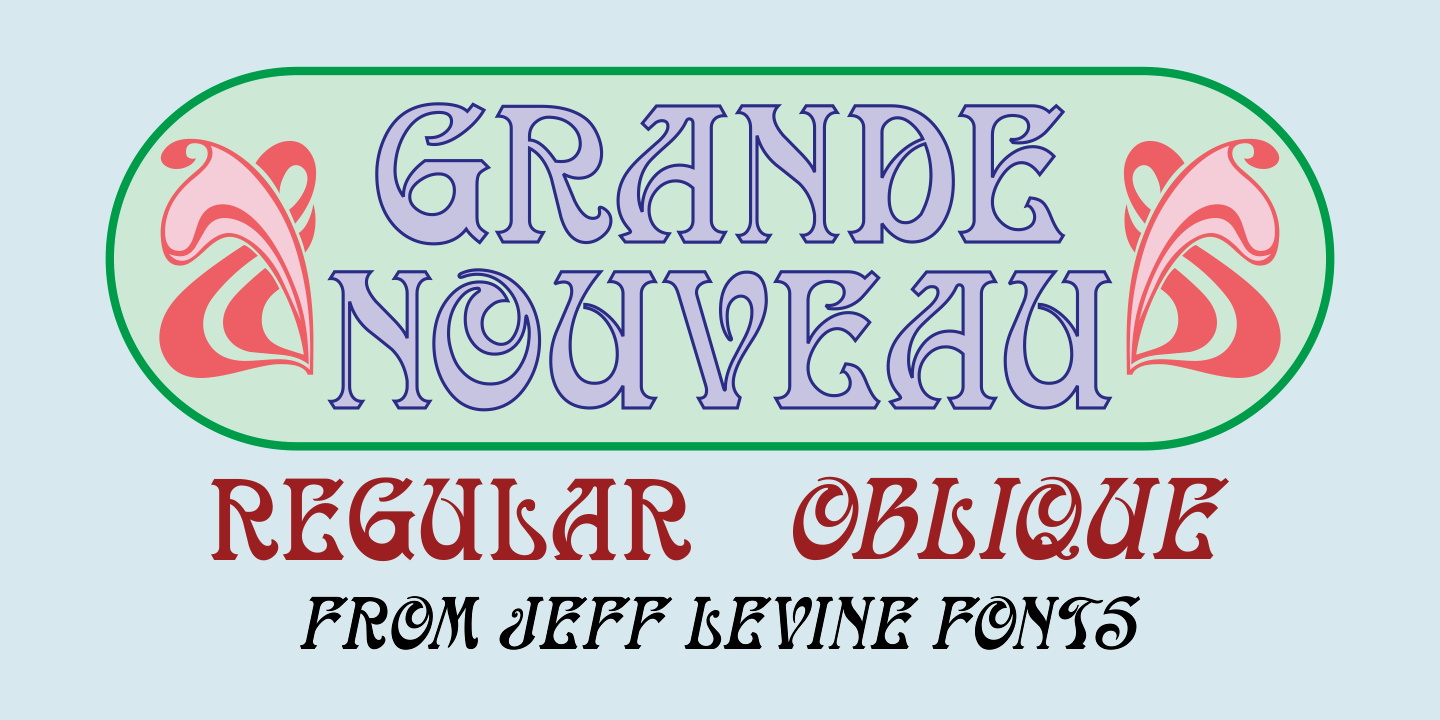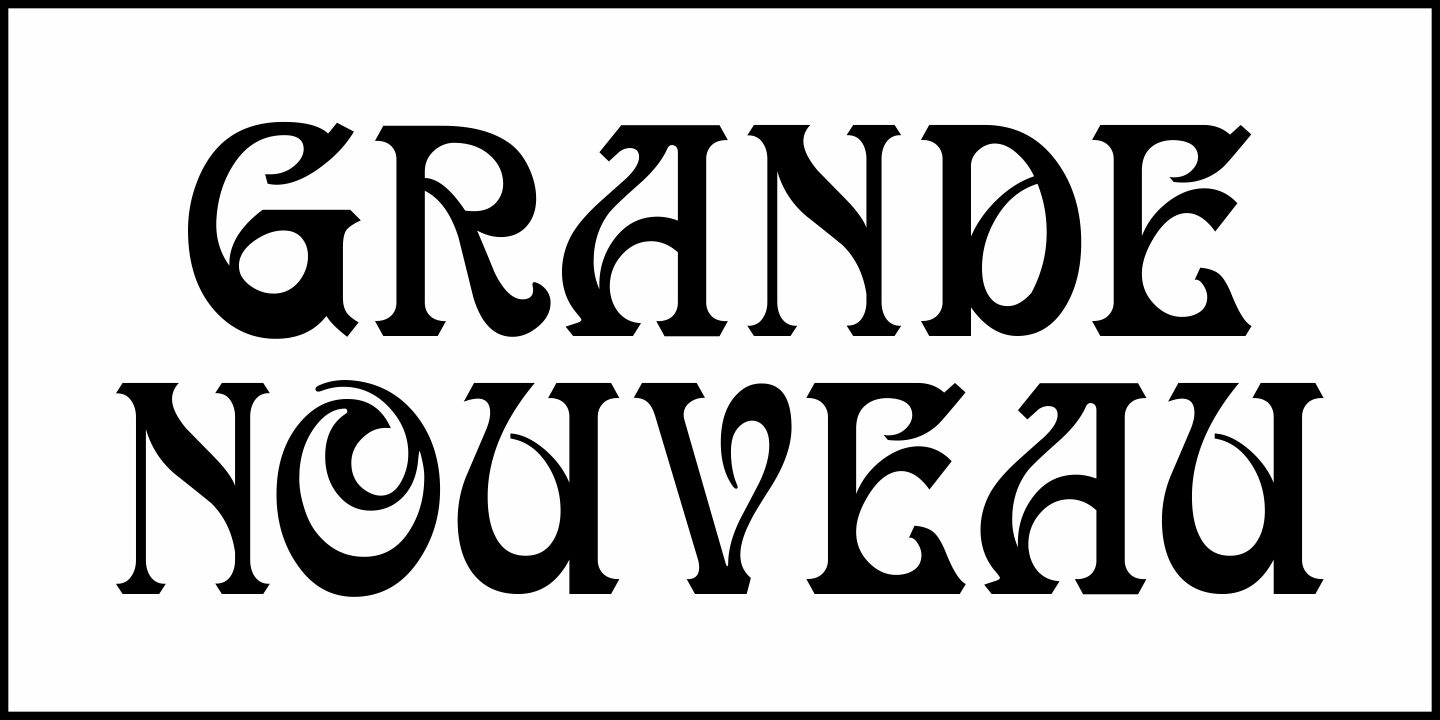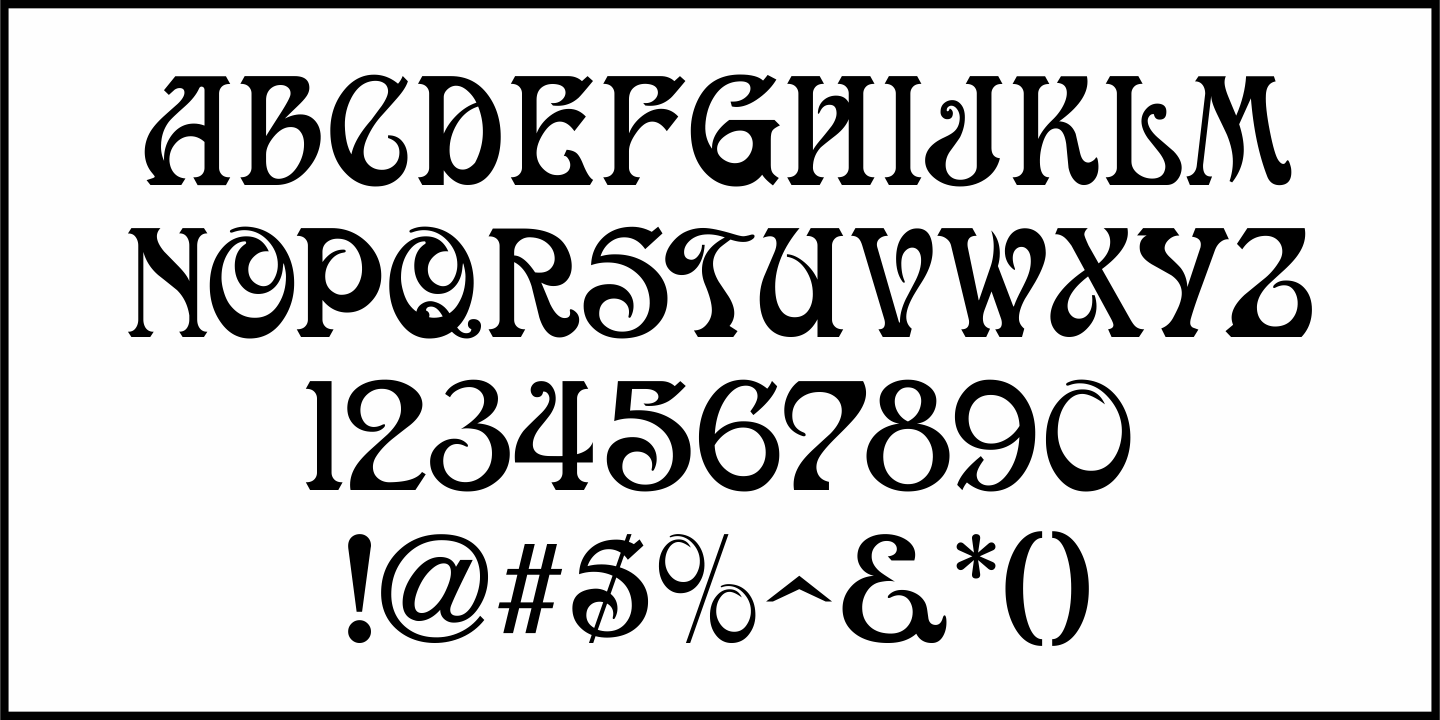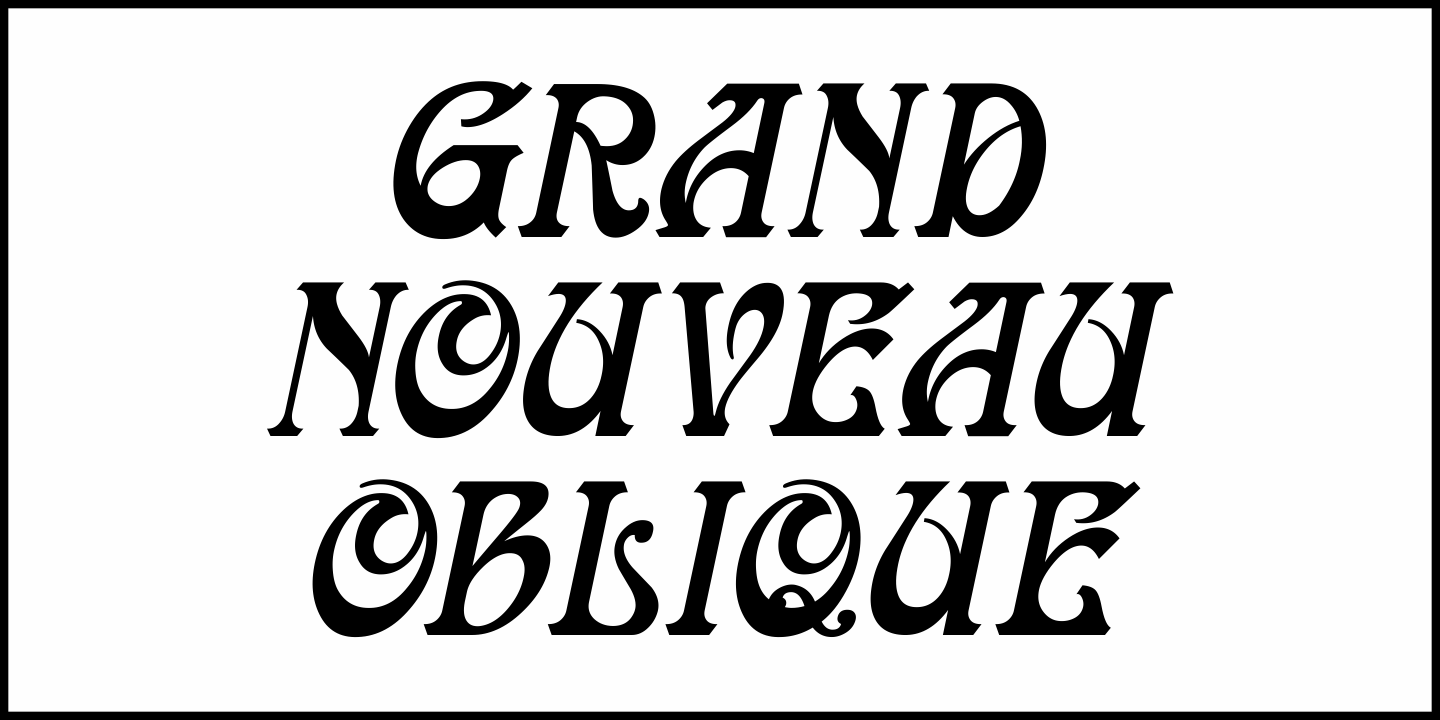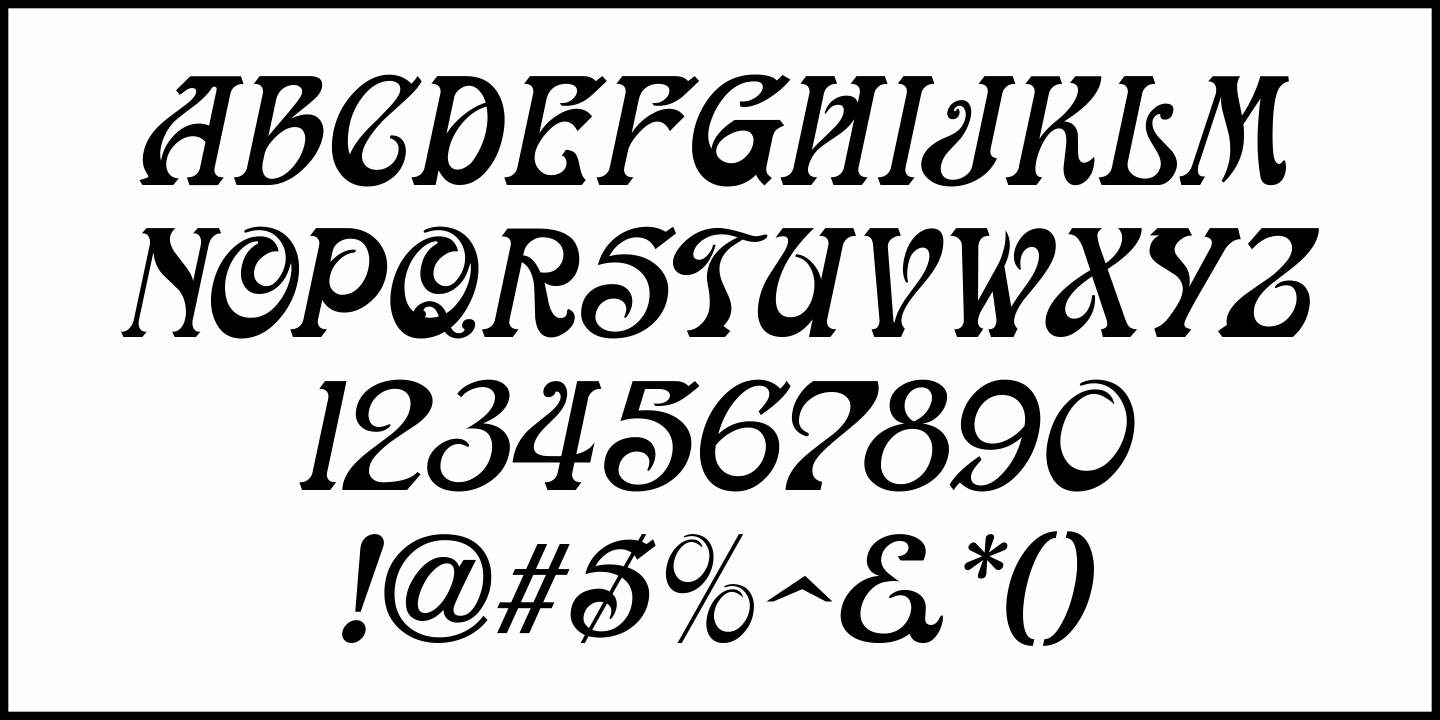
Grande Nouveau
Buy NowA 1920 book on lettering called "Faust's 75 Alphabets" by Charles Ayers Faust featured on one page a beautiful Art Nouveau serif design first shown in J. M. Bergling's "Art Alphabets and Lettering" and was reproduced with Bergling's permission.
Originally called "The American Beauty", it is now available digitally as Grande Nouveau JNL in both regular and oblique versions.